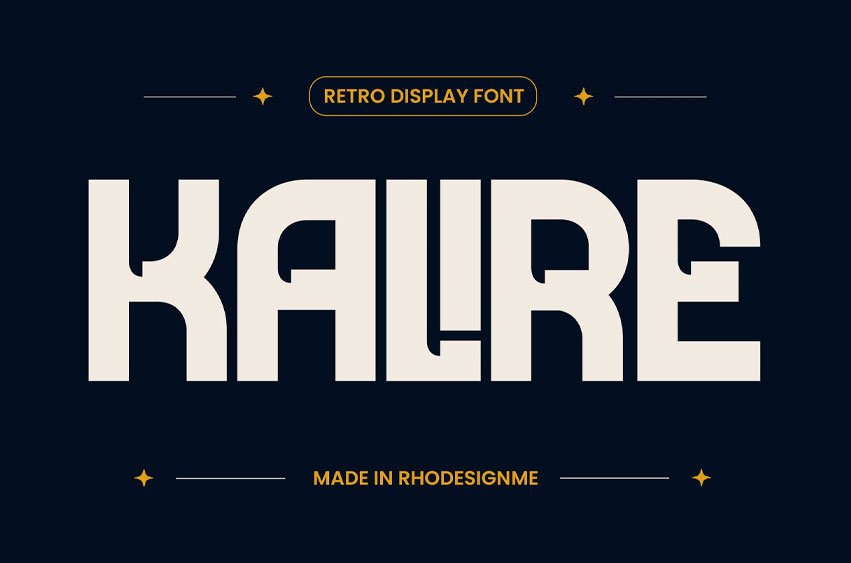
Kalire Font
Kalire Font is a modern-retro display font crafted with strong geometric shapes and a sophisticated vintage aesthetic. Designed to deliver a bold and artistic visual presence, this typeface combines 70s-inspired nostalgia with contemporary minimalism, making it perfect for high-impact creative projects.
With its heavy-set stems, unique geometric cutouts, and architectural structure, Kalire is ideal for luxury branding, fashion editorial, vintage posters, cinematic titles, packaging design, and high-end social media graphics. The font’s standout feature is its extensive collection of creative ligatures, allowing designers to transform simple text into custom, professional-grade typography with ease.
Kalire is built to help designers create eye-catching headlines and timeless branding that feels both classic and forward-thinking. Whether you are designing for print or digital media, this font brings a bold, sophisticated atmosphere that instantly commands attention.
• Uppercase Characters
• Creative Ligatures (25+ unique pairings)
• Modern Retro Display Style
• Bold Geometric Letterforms
• Clean & Architectural Design
• Precise Kerning & Spacing